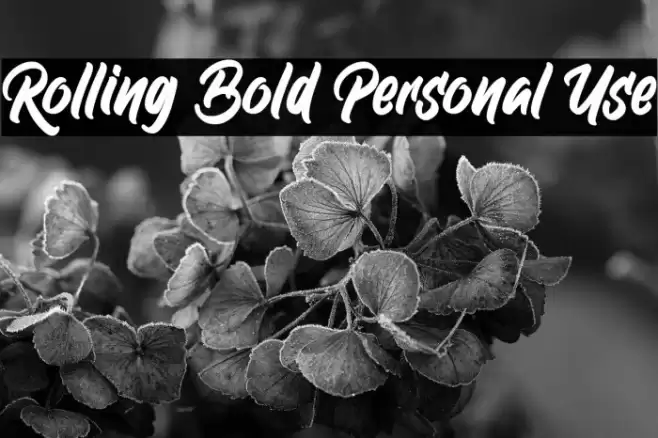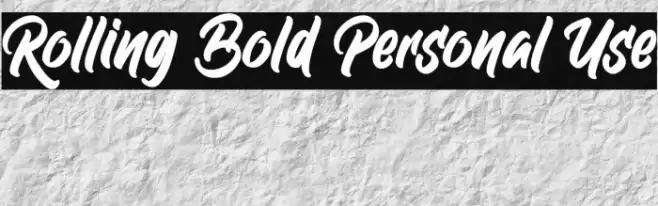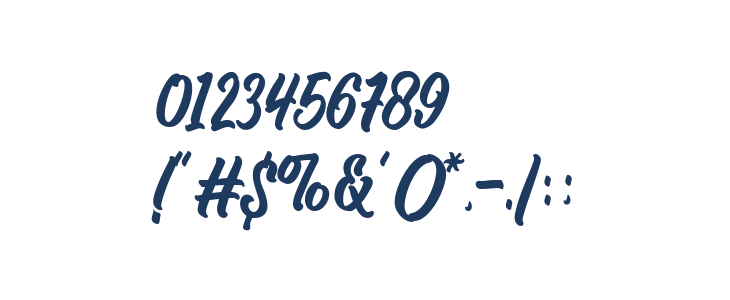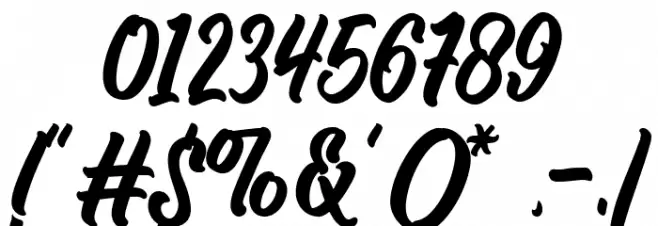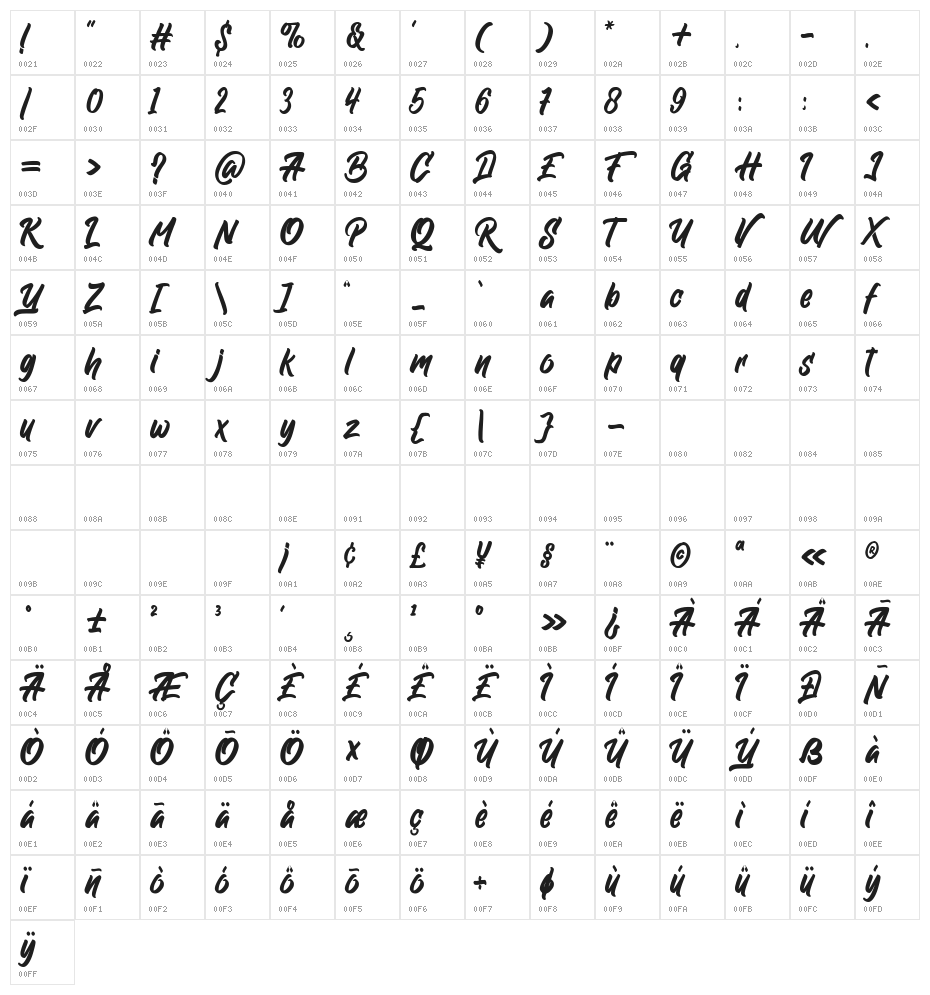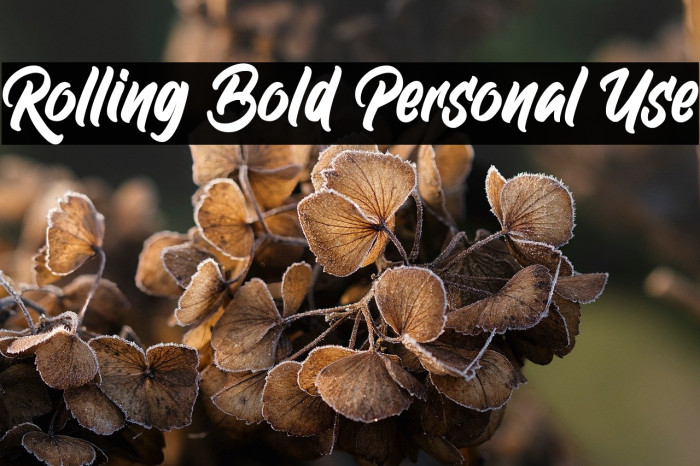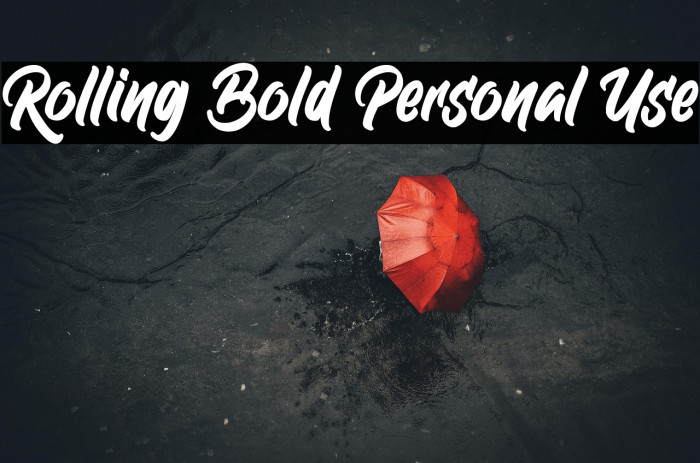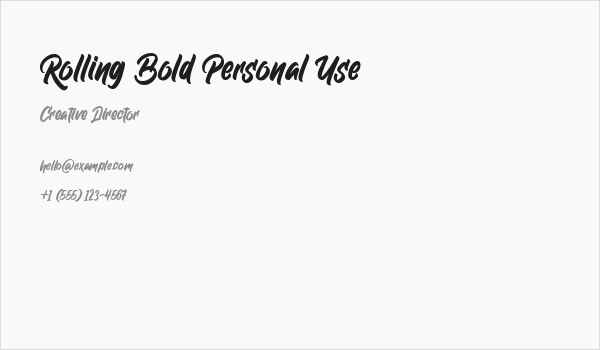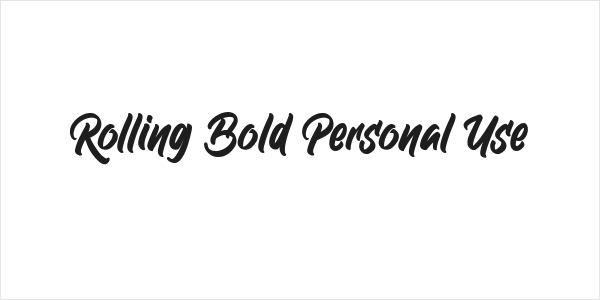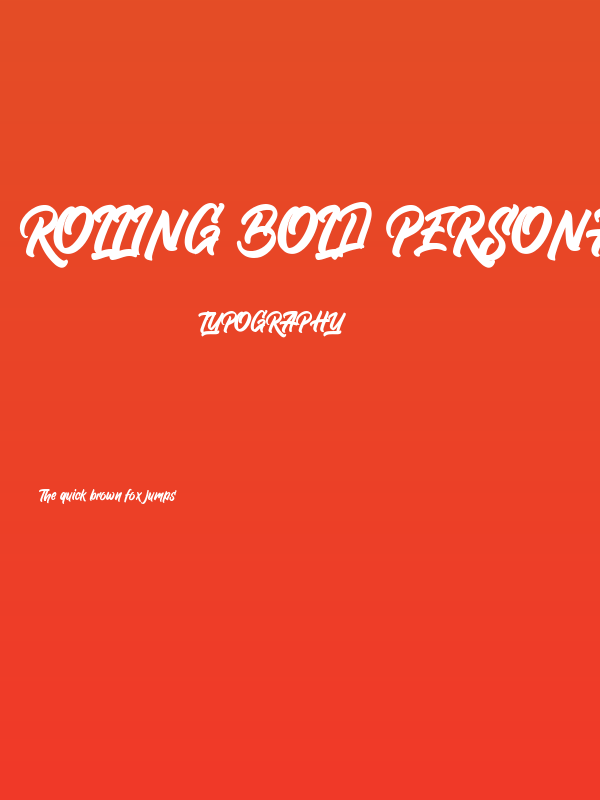
Rolling Bold Personal Use Font
Rolling Bold Personal Use Description
This bold and expressive script font features a dynamic and energetic style, characterized by thick, flowing strokes and a sense of movement. The uppercase letters are bold and prominent, with a slight slant that adds a touch of elegance. The lowercase letters maintain a consistent flow, enhancing the overall cohesiveness of the design. Numbers and special characters are crafted with the same attention to detail, ensuring versatility across various applications. The font's boldness and fluidity make it ideal for projects that require a strong visual impact.
A bold, dynamic script font with flowing strokes and a strong visual impact from Regular fonts.
- Proposed Projects: Ideal for branding, logos, posters, and headlines where a bold and expressive style is desired.
- Character Spacing: Tight